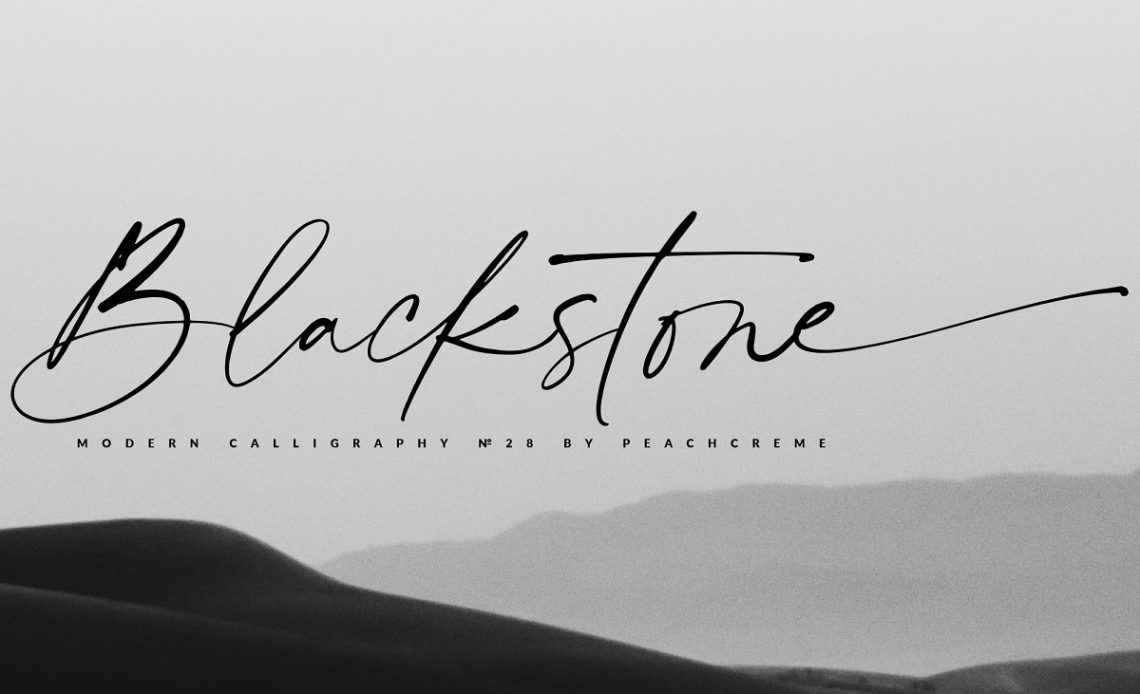
Introducing Blackstone - the latest addition to our luxury typography collection. Designed by the renowned PeachCreme, this script font is perfect for those seeking a modern and casual chic look.
Blackstone boasts a full set of both uppercase and lowercase letters, numerals, punctuation marks and 85 ligatures - all of which are perfect for branding, wedding invitations, cards and even wine labels! The lowercase letters include beginning and ending swashes, giving it a realistic hand-lettered look that will surely elevate your designs.